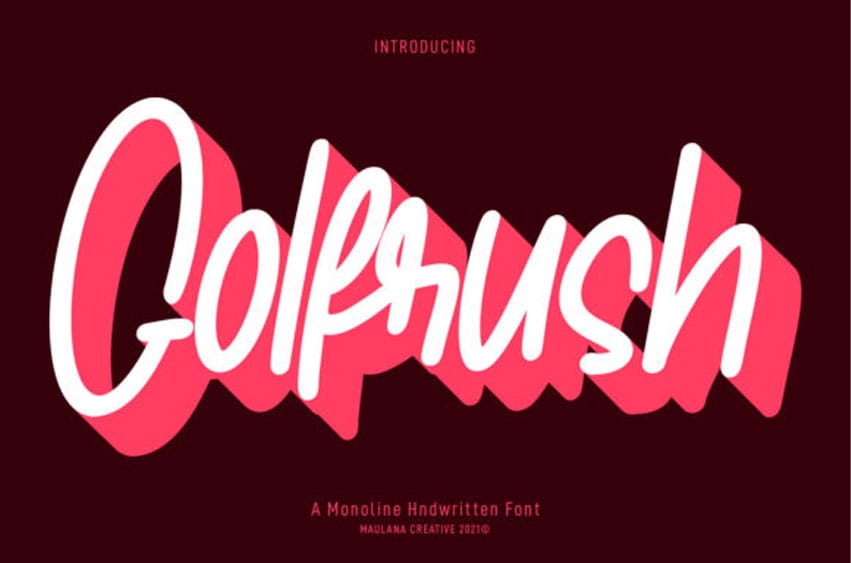
Golfrush Font is a relaxed and adaptable handwritten font.
No matter the topic, this font will be an incredible asset to your font library, as it has the potential to elevate any creation.